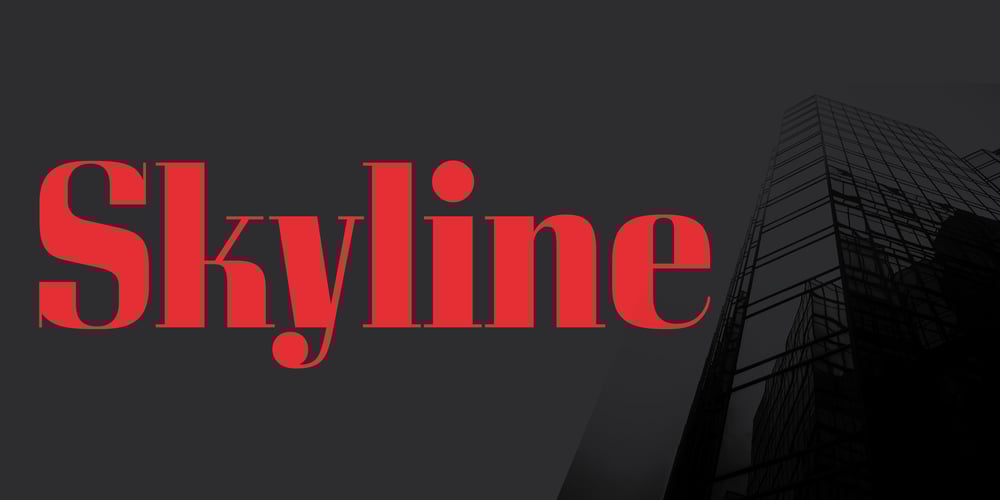
Skyline
Skyline font
Skyline Font Family was designed by David Berlow and published by Font Bureau. Skyline contains 2 styles and family package options. Skyline was commissioned from Font Bureau by Condé Nast specifically as a headline typeface for Traveler magazine. This strongly personal work by Imre Reiner from 1929 and 1934 was known in Europe as Corvinus. Skyline Black and Bold Condensed offer immediate headline recognition through Reiner’s variations on the themes found in the classical Modern structure. Both styles were adapted by Jane Patterson; FB 1992